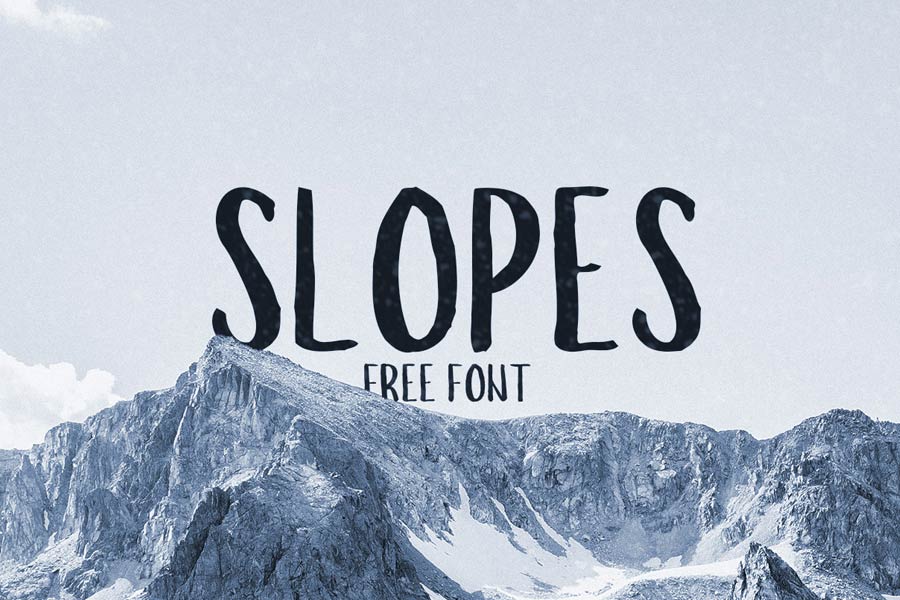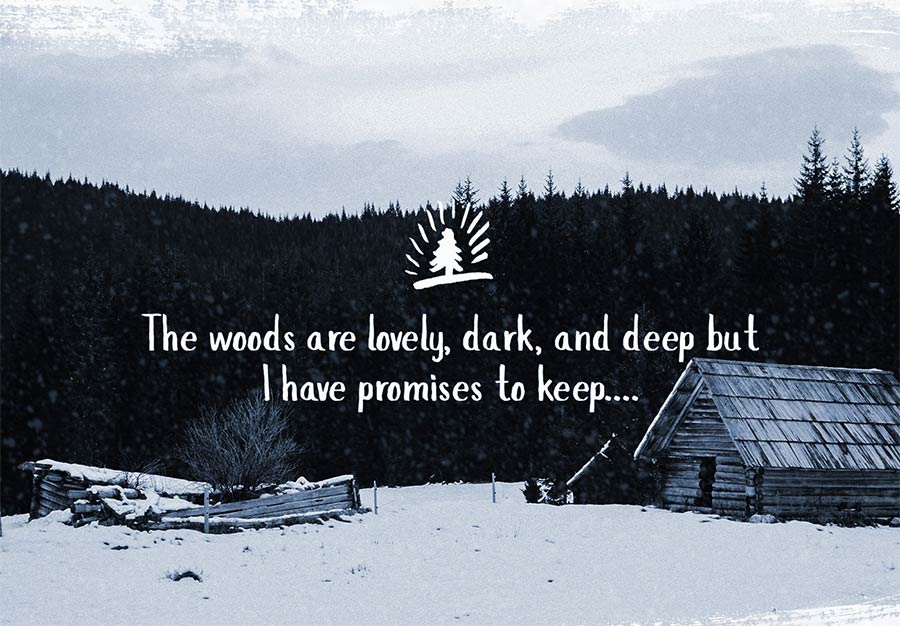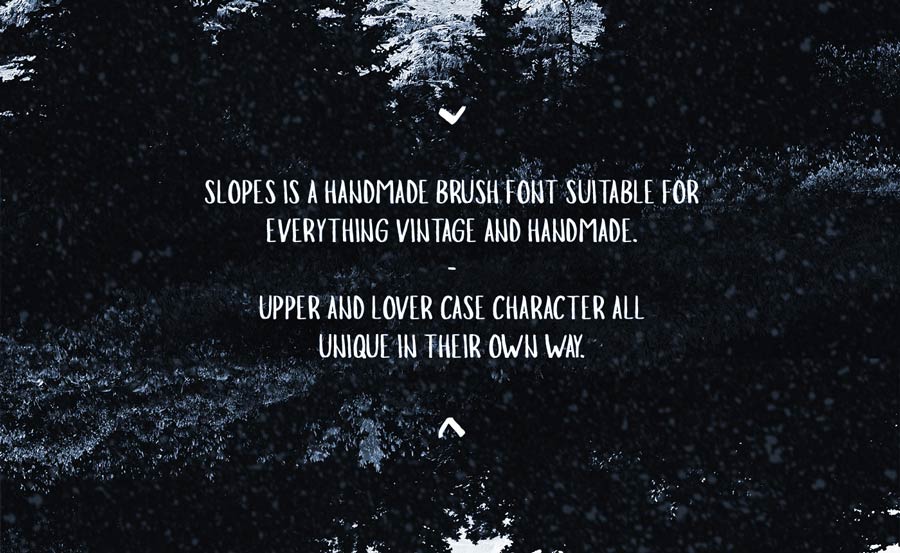
Slopes is a handmade brush font suitable for everything vintage and handmade. The free version comes with 84 characters including the basic latin characters. You can unlock the full character set by purchasing the commercial version which supports multilingual characters.
- Designer: Boris Garic